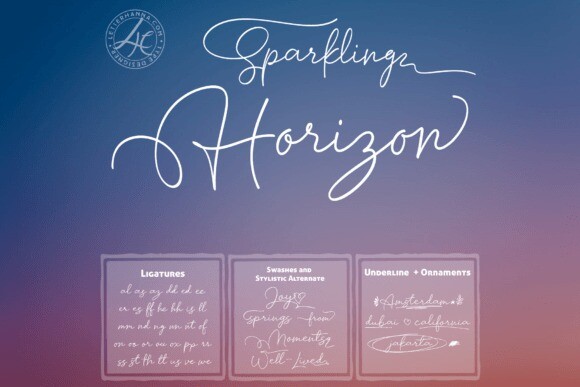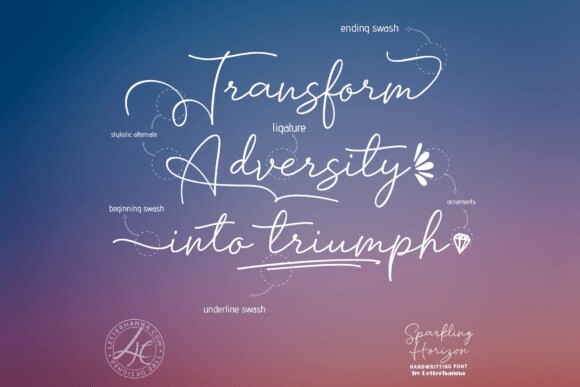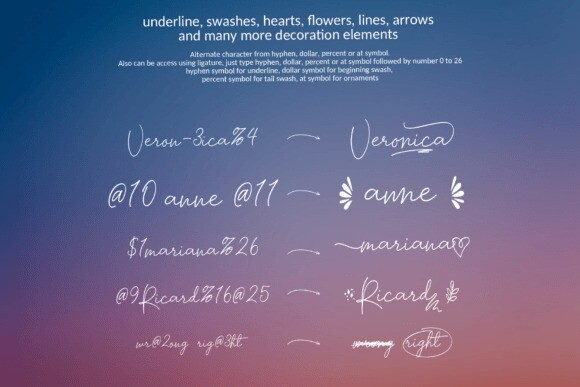
Sparkling Horizon Font
Sparkling Horizon Font is a mesmerizing handwritten font that captures the essence of boundless creativity and shimmering elegance. Whether used for invitations, logos, or creative projects, “Sparkling Horizon” brings a sense of enchantment to your words.
Let your imagination take flight as you create with this font, where each character sparkles like a unique star on the canvas of your design journey.